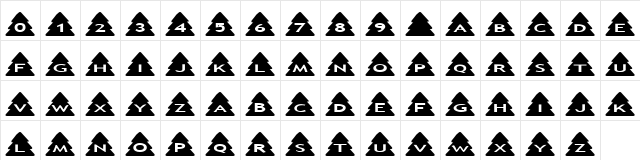
AlphaShapes xmas trees Normal Free Font
AlphaShapes xmas trees Normal
Design Context for AlphaShapes xmas trees
AlphaShapes xmas trees is a composed and adaptable typeface that performs quietly and consistently across a wide range of design contexts.